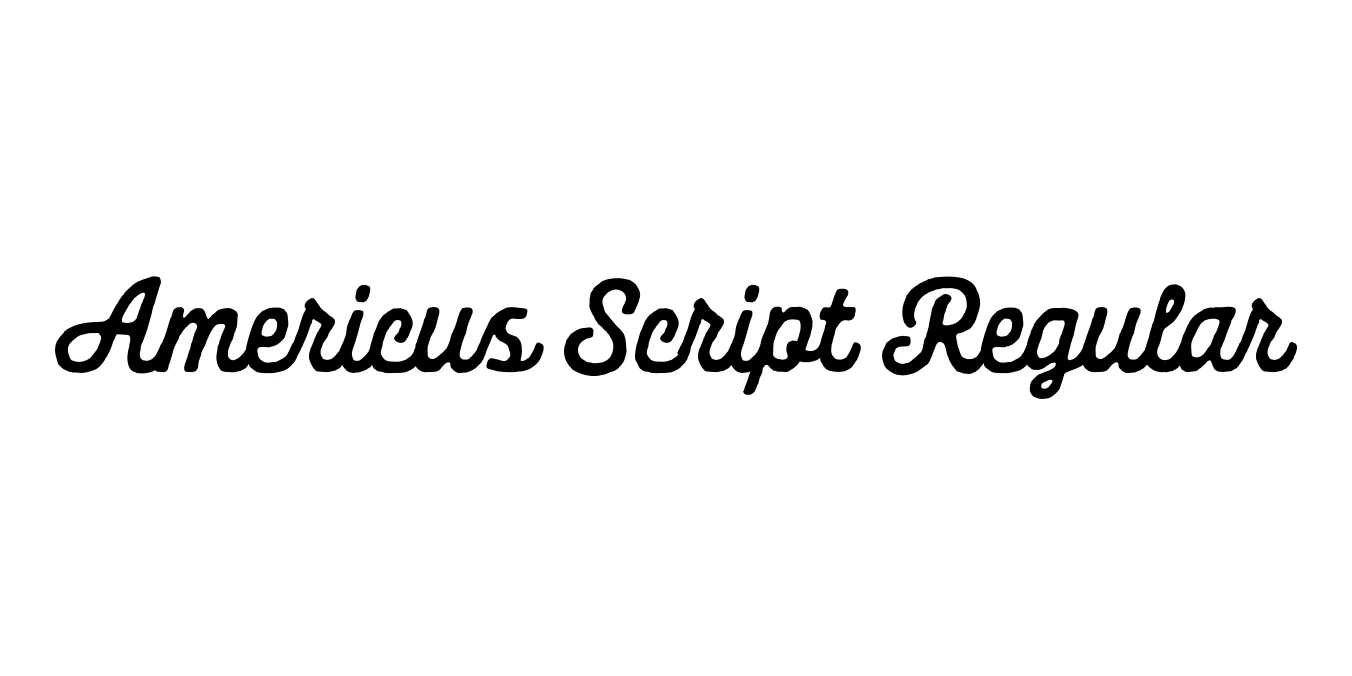
Americus Script Regular
Designed by Jeremy Vessey (Hustle Supply Co.)
| Font Name | Americus Script |
| Designer | Jeremy Vessey (Hustle Supply Co.) |
| Similar Fonts | Thirsty Script, Heritage Script, Reklame Script |
Americus Script Regular is a masterfully crafted typeface that captures the essence of classic Americana design. Developed by Jeremy Vessey, this font is part of the larger Americus Script & Sans collection, specifically engineered to provide a hand-drawn, textured aesthetic that feels both authentic and nostalgic. The script features fluid transitions and organic character shapes that mimic traditional sign painting and mid-century calligraphy.
Because of its vintage-inspired personality, Americus Script Regular is a versatile tool for modern designers. It excels in environments where a human touch is required, bridging the gap between rugged durability and elegant sophistication. The textured edges of the glyphs ensure that even in digital formats, the font maintains a printed, letterpress-quality feel that adds depth and character to any creative composition.
Americus Script Regular Best Uses
Excellent for creating artisan brand identities and professional wordmarks.
Perfect for t-shirt designs, caps, and vintage-style merchandise.
Adds a premium, handcrafted feel to product labels and artisanal goods.
Highly effective for stylized quotes and organic lifestyle imagery.